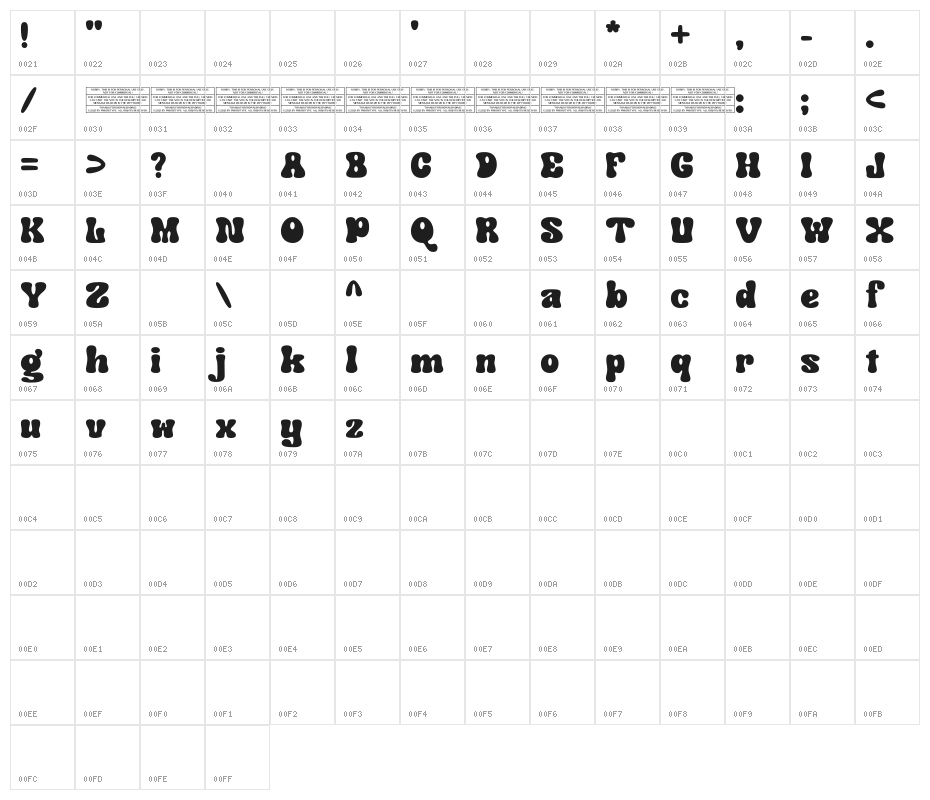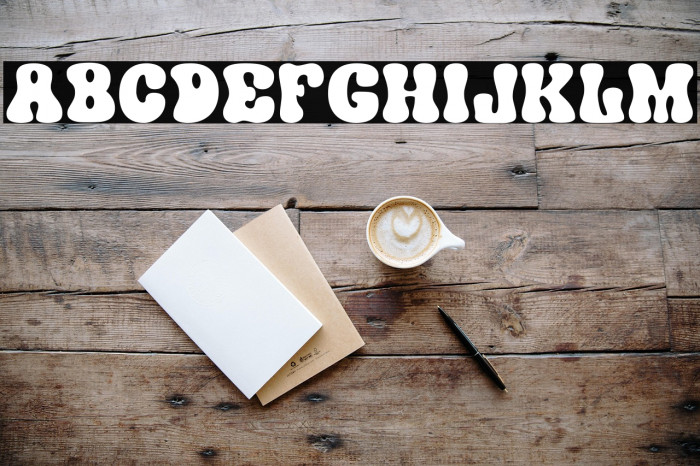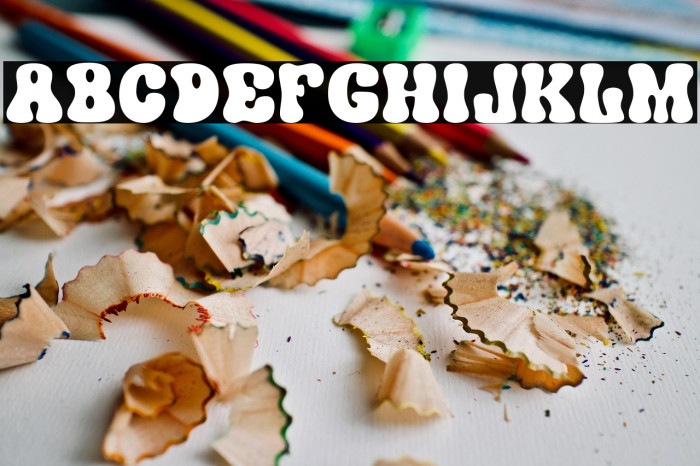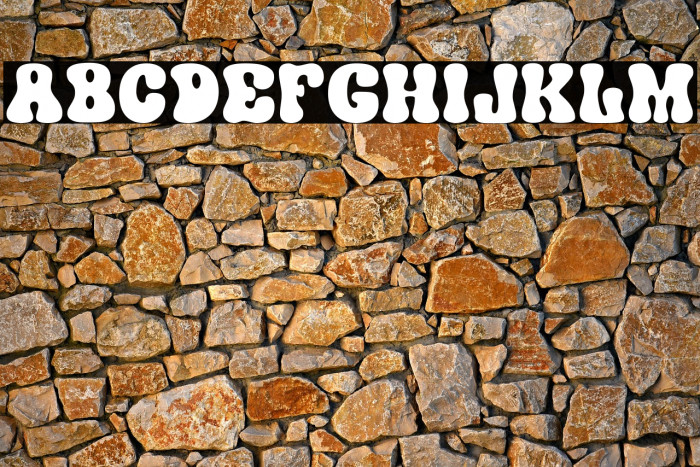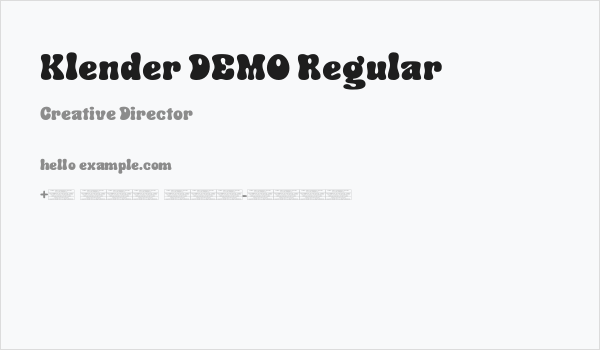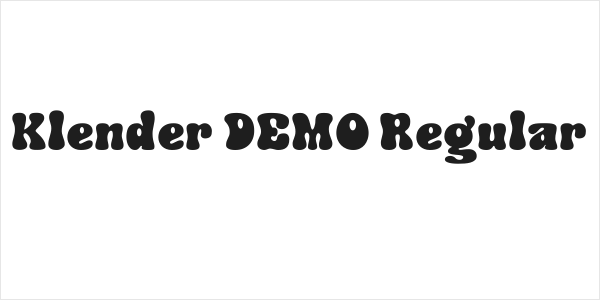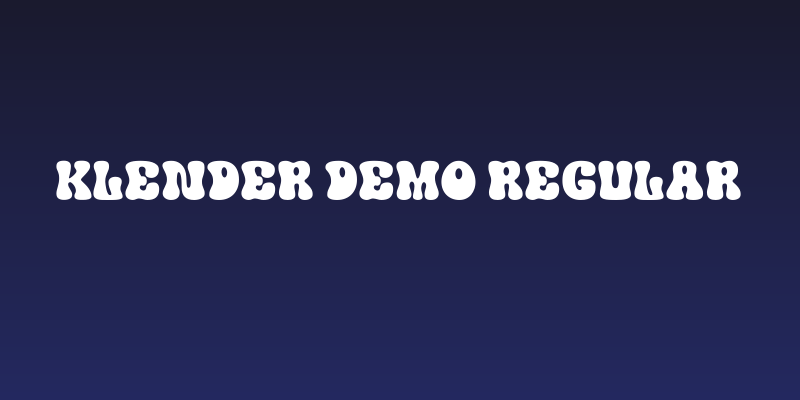
Klender DEMO Regular Font
Klender DEMO Regular Description
This font features a bold and playful design with thick, rounded strokes that give it a bubbly and friendly appearance. The characters are uniformly wide, creating a sense of balance and consistency across the alphabet. The uppercase and lowercase letters maintain a cohesive style, with the lowercase letters slightly more compact. The font's whimsical nature is further emphasized by its unique treatment of special characters, which are equally bold and rounded. This design is ideal for capturing attention and conveying a sense of fun and creativity.
Overall StylePlayful, Whimsical
Proposed ProjectsIdeal for children's books, playful branding, posters, and creative projects that require a fun and engaging typeface.